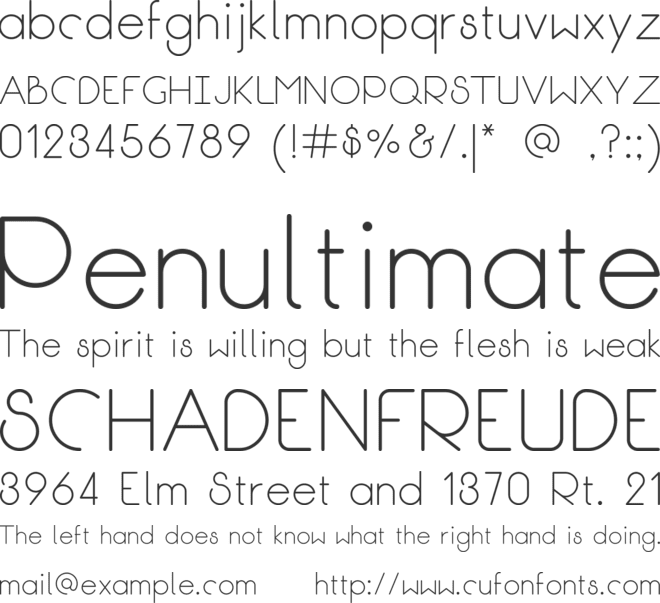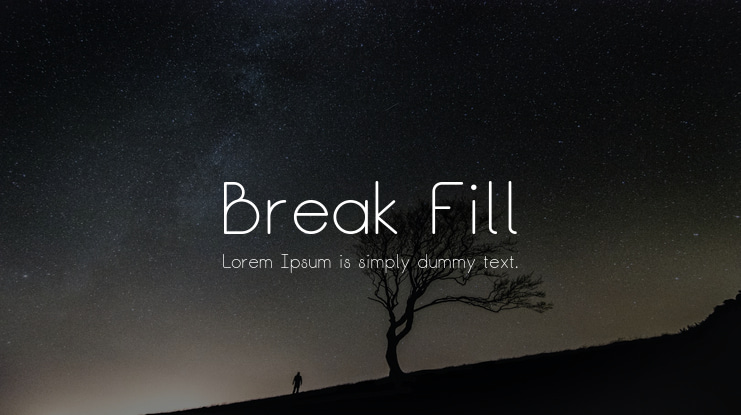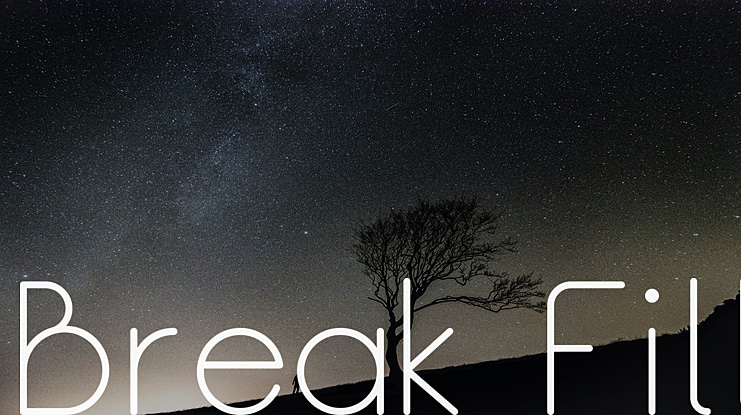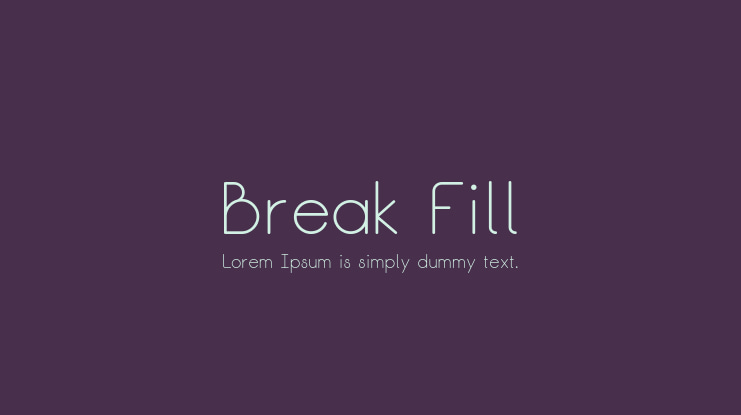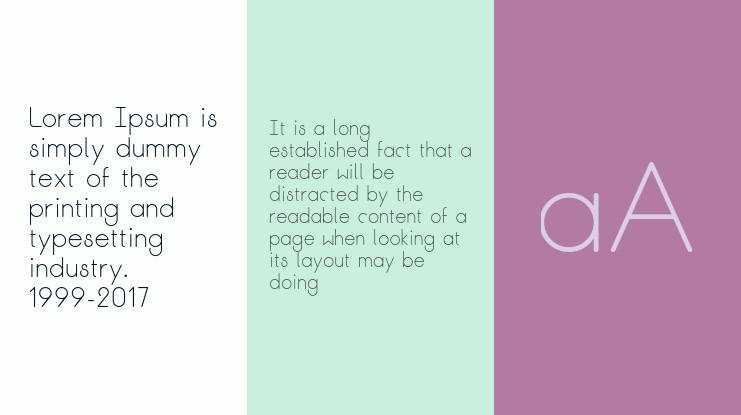
Break Fill Font Family
Break Fill Typeface is a modern sans serif typeface that is based on Break typeface. This version contains five weights bold to extra light with numerals, small, caps and symbols. Learn more: https://uifreebies.net/font/break-fill-typeface-free